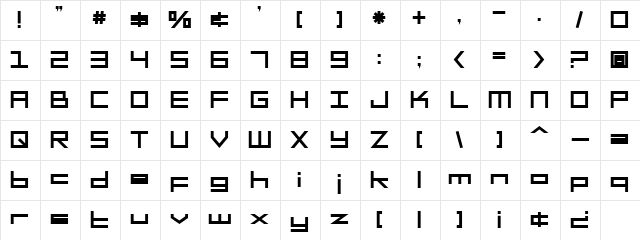
SF Square Head Bold Free Font
SF Square Head Bold
SF Square Head Family
SF Square Head Bold
Complete SF Square Head Bold glyph index. Displaying only characters natively supported by SF Square Head Bold font.
Design Context for SF Square Head
SF Square Head is a composed and adaptable typeface that performs quietly and consistently across a wide range of design contexts. Its bold stroke weight gives it real presence on the page.
Pro Tip: Use SF Square Head in both headline and body roles to test its range before committing to a single application.